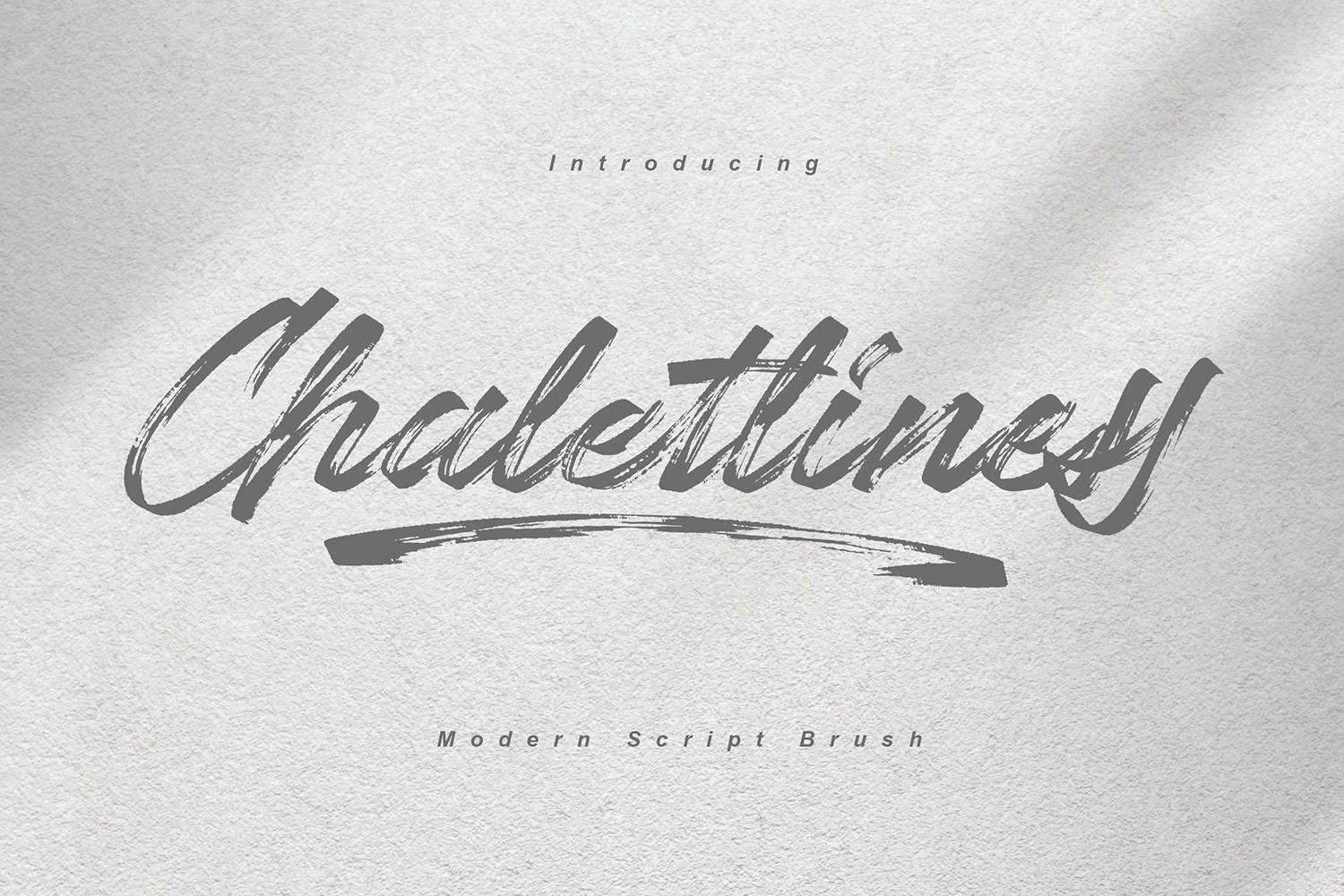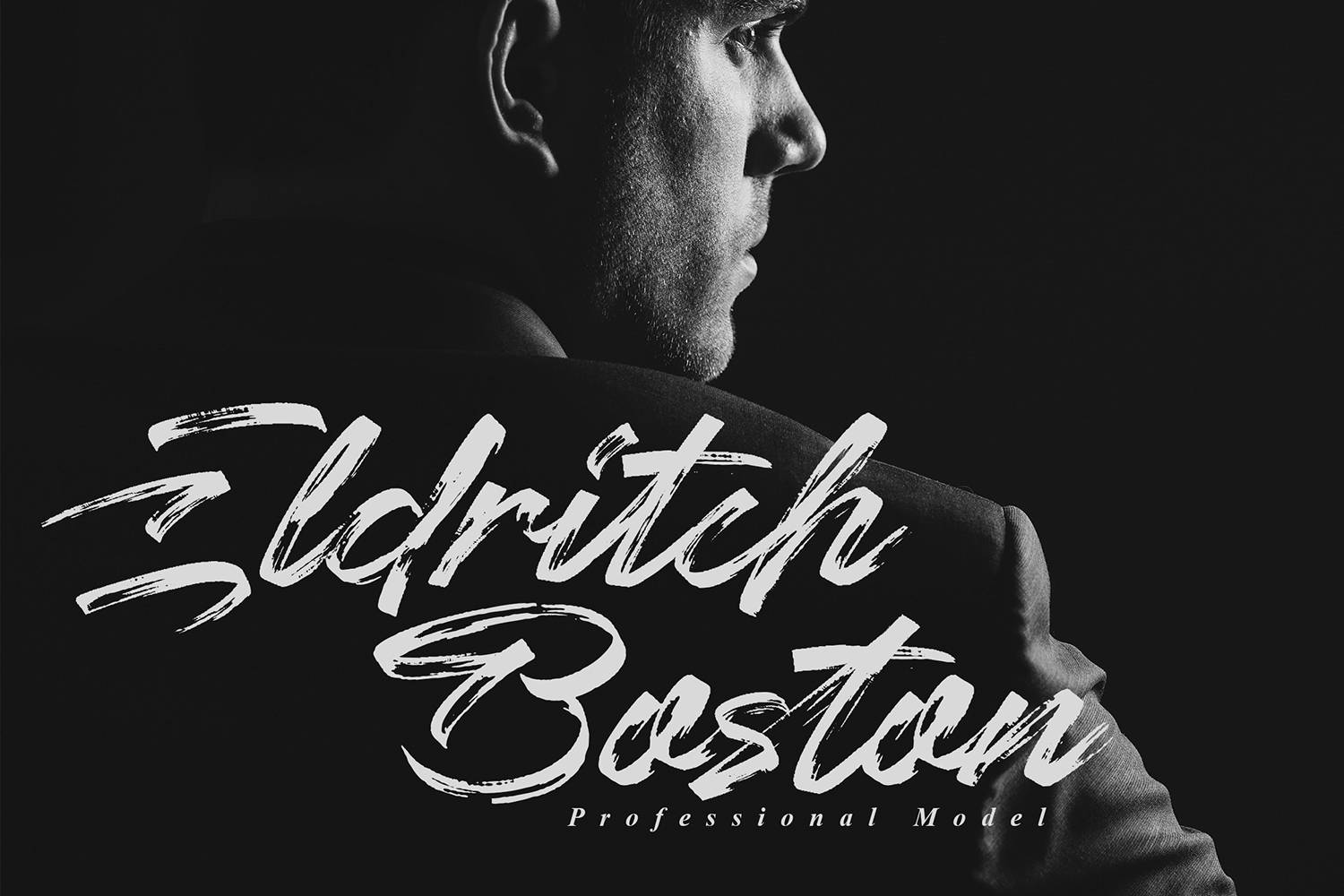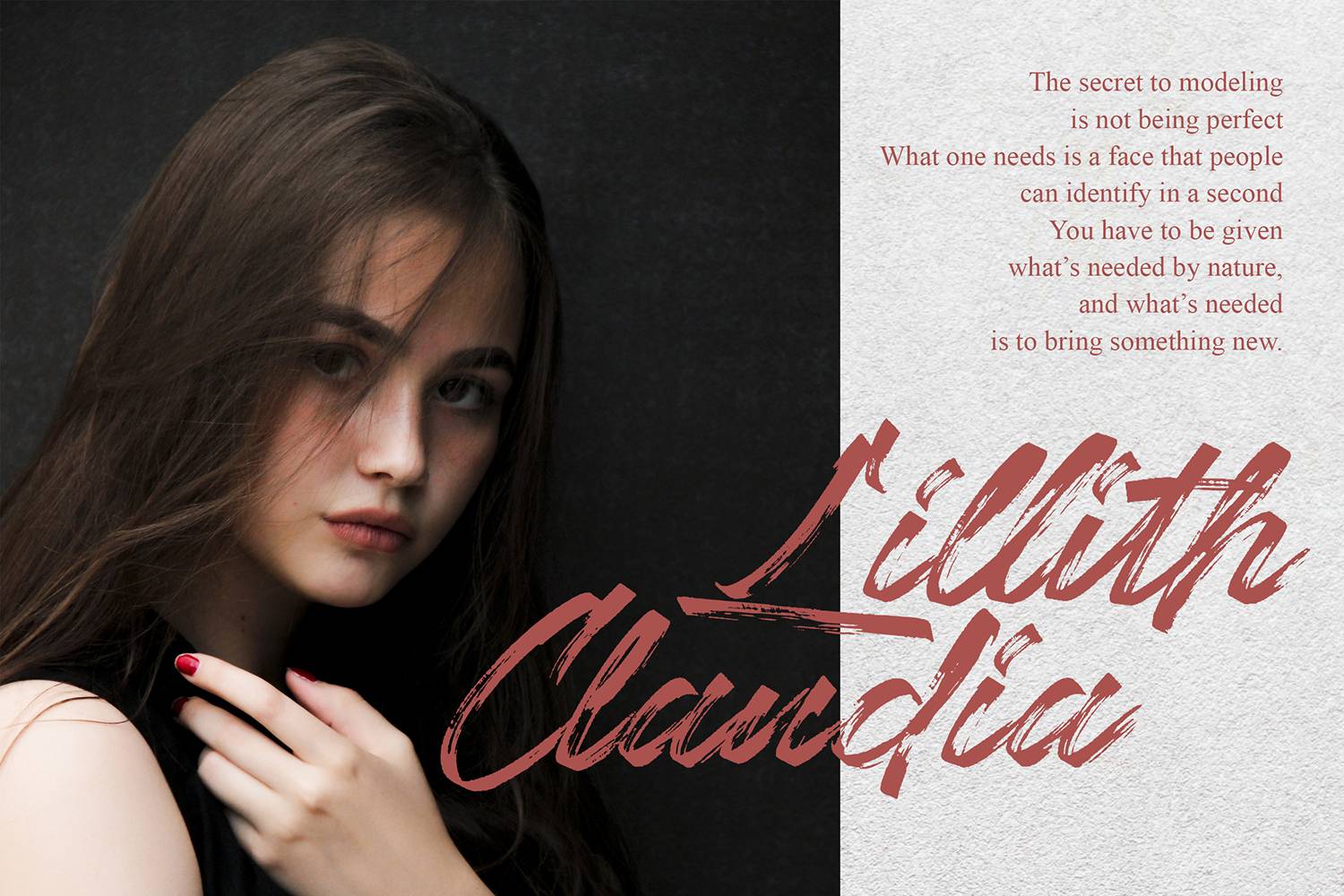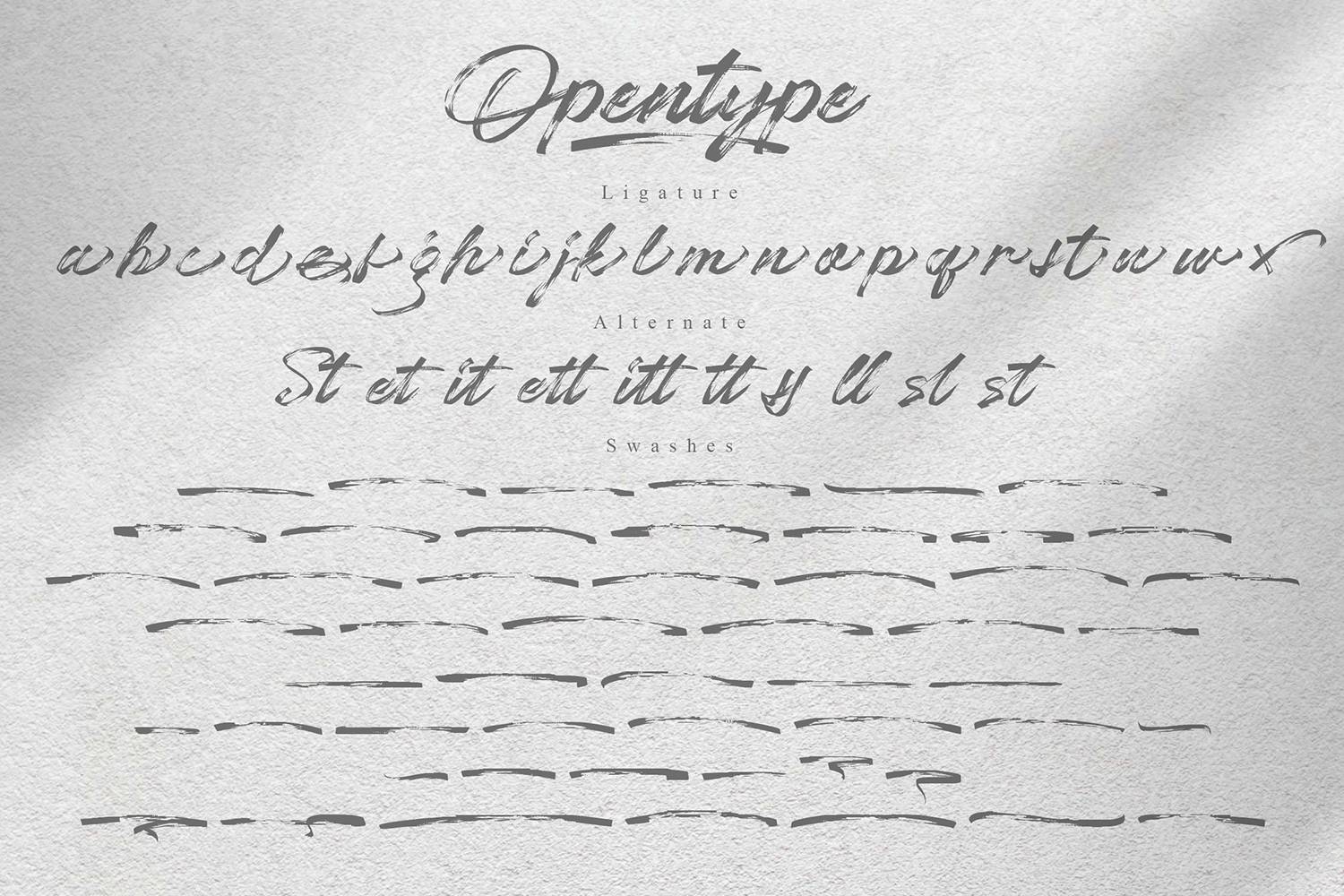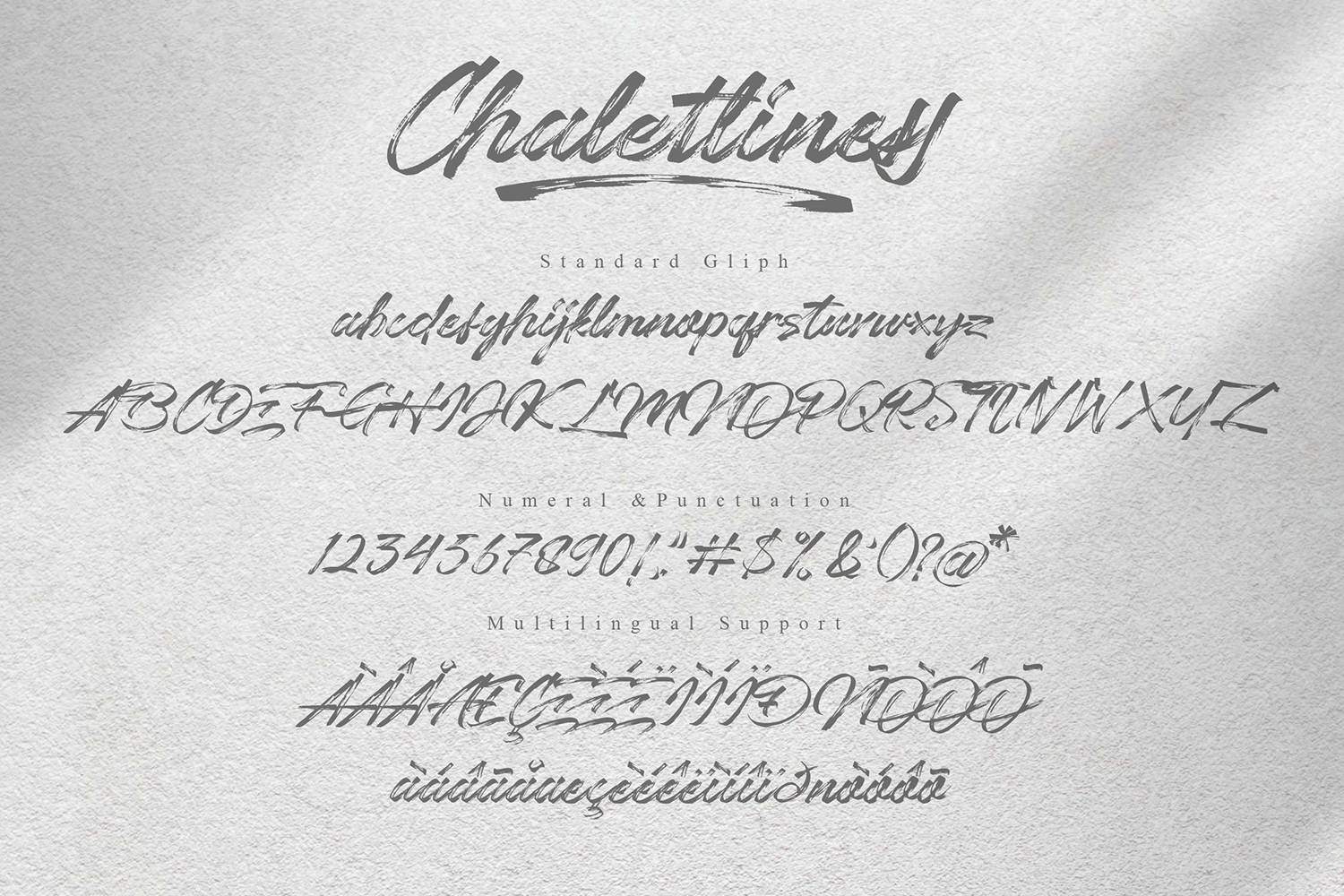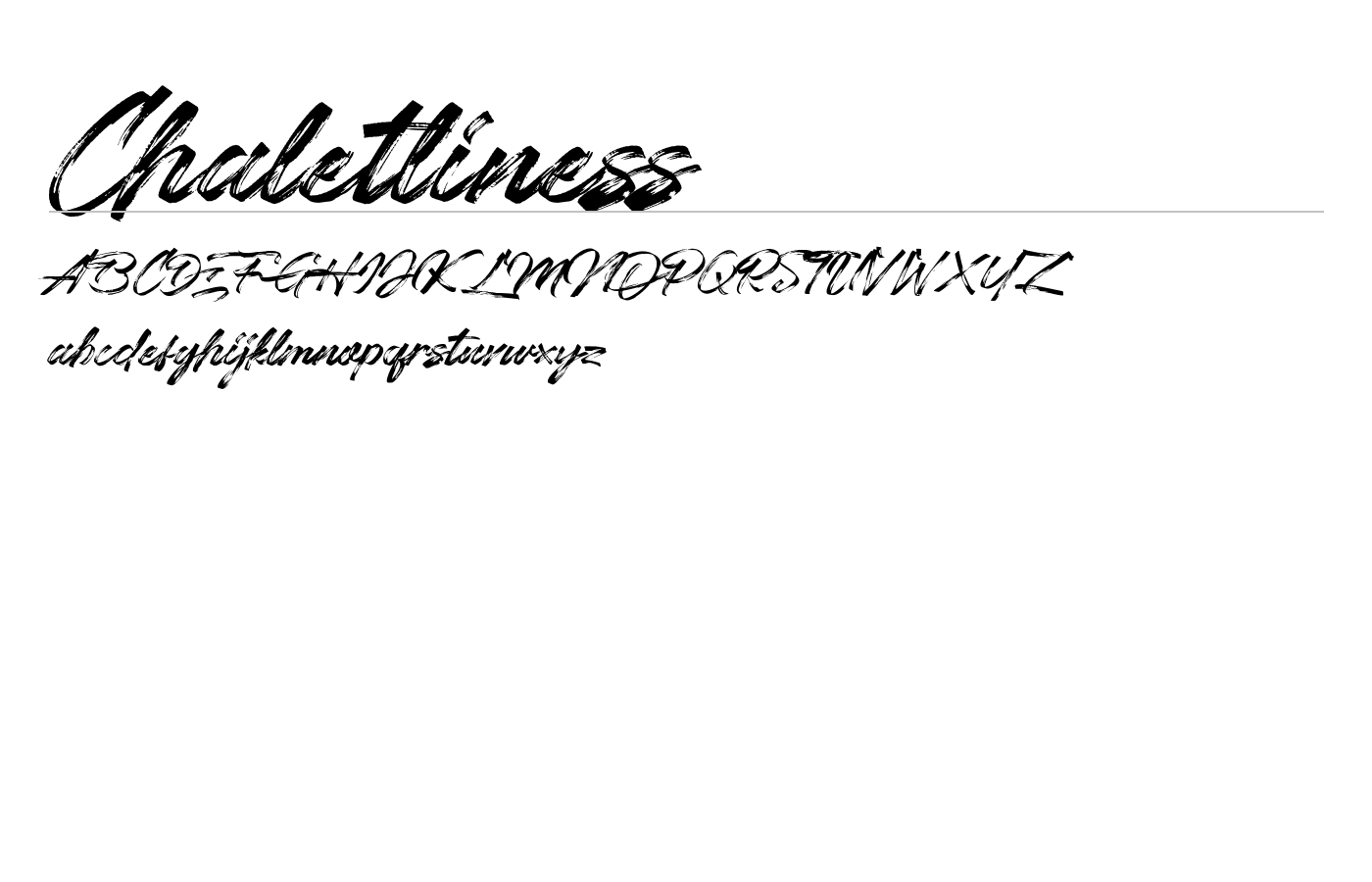
Chaletliness is a dynamic script font that mimics energetic, hand-painted brush strokes with its rough, textured lines and slightly slanted characters. Its bold, expressive style conveys a sense of creativity and spontaneity, making it perfect for eye-catching logos, artistic branding, or edgy headlines that need a personal, lively touch. This font works best where a raw, handcrafted feel is desired, bringing character and movement to designs.
Chaletliness Font
About Chaletliness Font
| Font family | Chaletliness Font |